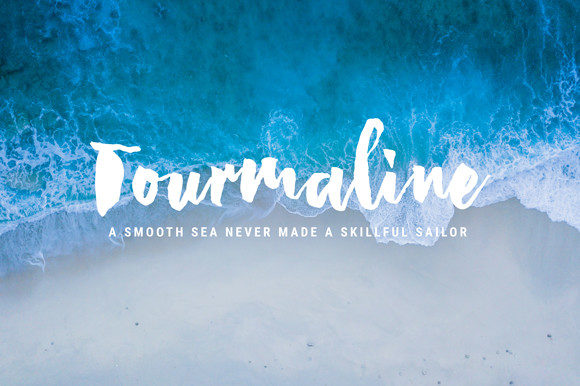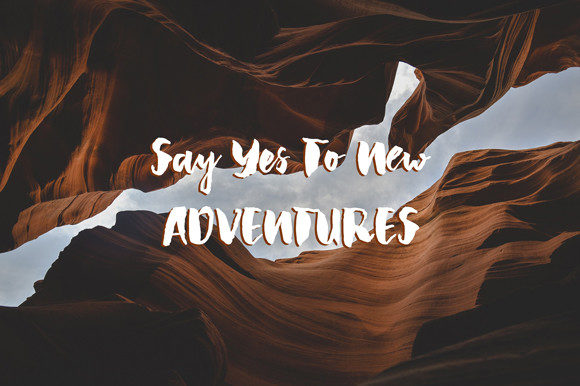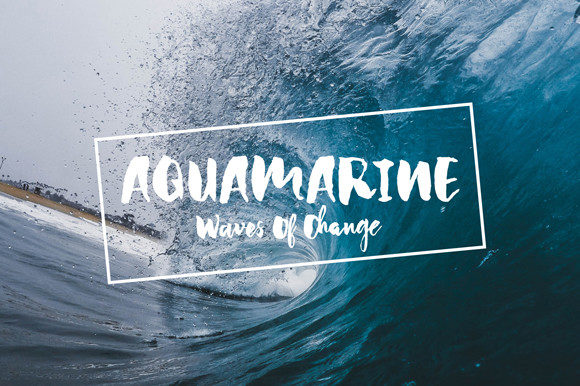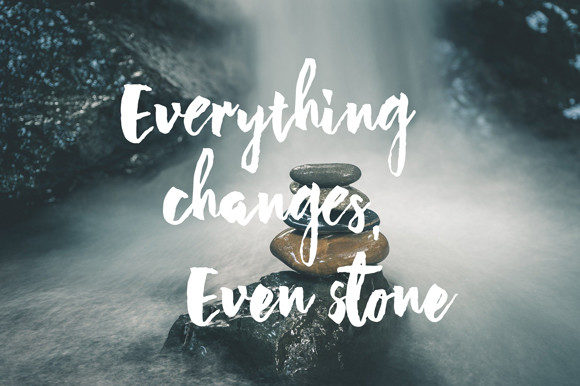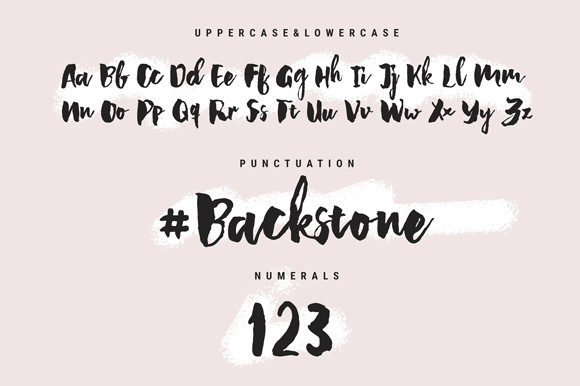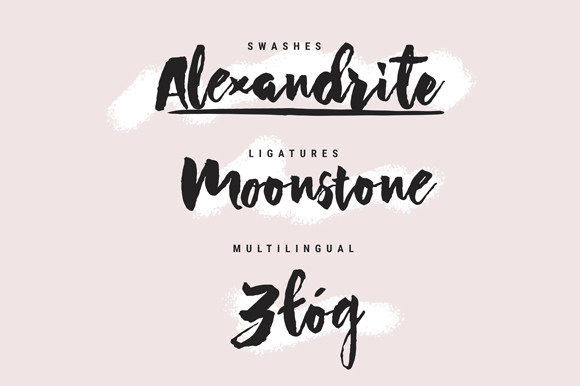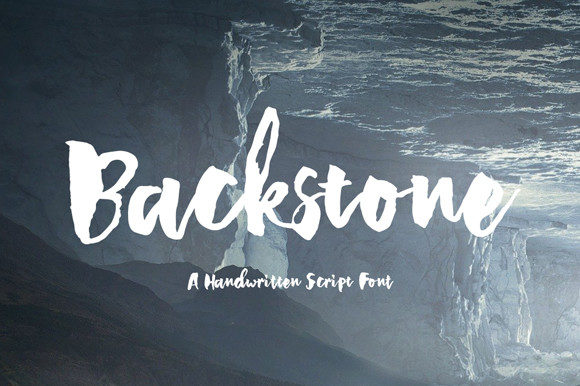
Introducing Backstone Font: The Ultimate Urban Design Companion
Are you a designer or crafter looking for a font that adds a cool, urban touch to your creations? Look no further than Backstone Font, a brushed and thick lettered handwritten font that’s perfect for a wide range of design projects. In this article, we’ll take a closer look at Backstone Font, its features, and how you can use it to elevate your designs.
What is Backstone Font?
Backstone Font is a unique, handwritten font that’s characterized by its thick, brushed letters. The font has a rugged, urban feel that’s perfect for designs that require a cool, edgy touch. Whether you’re working on a logo, poster, or social media graphic, Backstone Font is sure to make your design stand out.
Key Features of Backstone Font
• Brushed and Thick Letters: The font features thick, brushed letters that give it a rugged, urban feel.
• Handwritten Style: Backstone Font has a handwritten style that’s perfect for designs that require a personal touch.
• Cool and Edgy: The font has a cool, edgy vibe that’s perfect for urban designs and casual creations.
• Versatile: Backstone Font can be used for a wide range of design projects, from logos and posters to social media graphics and more.
How to Use Backstone Font in Your Designs
Backstone Font is easy to use and can be incorporated into a wide range of design projects. Here are a few ideas to get you started:
• Urban Logos: Use Backstone Font to create a logo that’s edgy and urban. The font is perfect for logos that require a cool, rugged touch.
• Posters and Flyers: Add Backstone Font to your posters and flyers to give them a cool, urban vibe.
• Social Media Graphics: Use Backstone Font to create social media graphics that stand out from the crowd.
• Casual Creations: Backstone Font is perfect for casual creations, such as t-shirt designs, stickers, and more.
Tips for Using Backstone Font
Here are a few tips for using Backstone Font in your designs:
• Pair with Other Fonts: Backstone Font pairs well with other fonts, such as sans-serif fonts and script fonts. Experiment with different font combinations to find the perfect look for your design.
• Use Bold and Bright Colors: Backstone Font looks great in bold and bright colors. Experiment with different colors to find the perfect look for your design.
• Experiment with Texture and Patterns: Backstone Font can be used with texture and patterns to add depth and interest to your design.
Backstone Font is a cool, brushed and thick lettered handwritten font that’s perfect for urban designs and casual creations. With its rugged, urban feel and versatile design, Backstone Font is sure to become a staple in your design toolkit. Whether you’re a designer or crafter, Backstone Font is a great choice for any project that requires a cool, edgy touch.